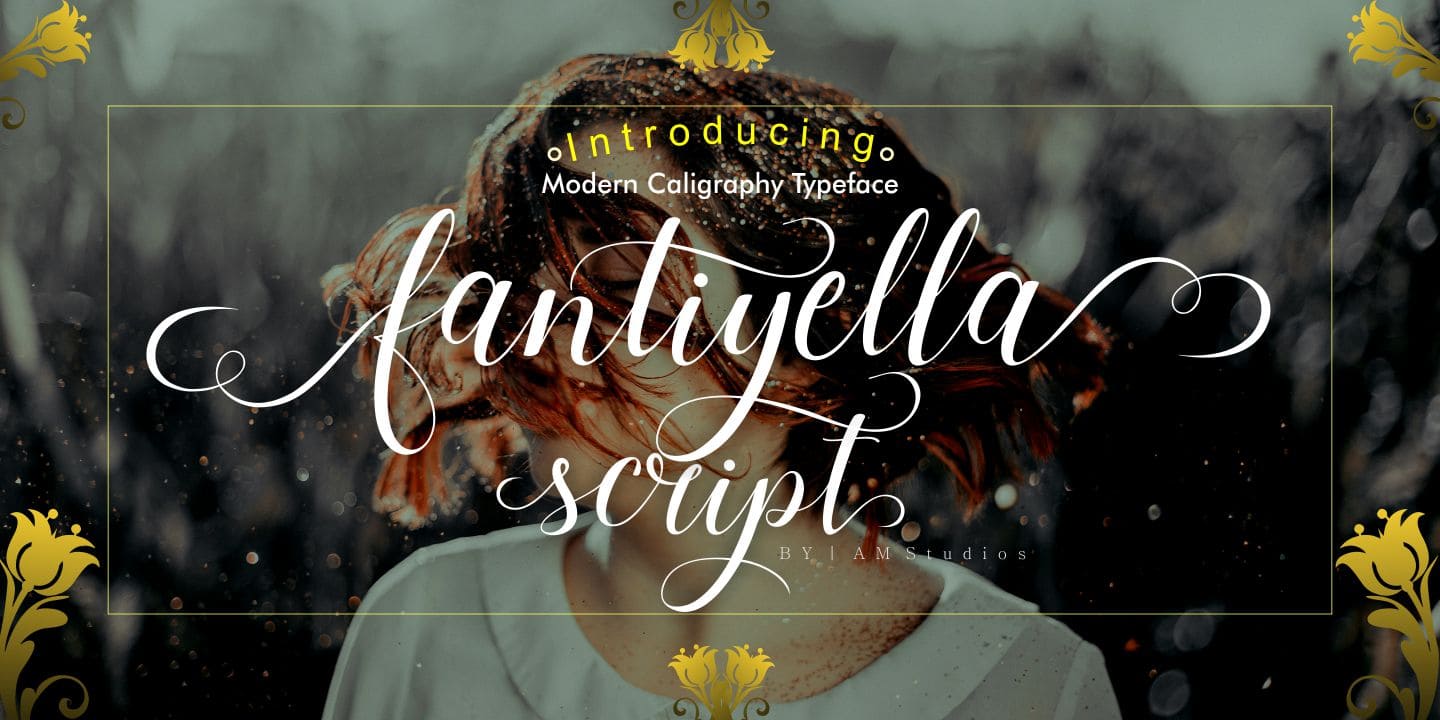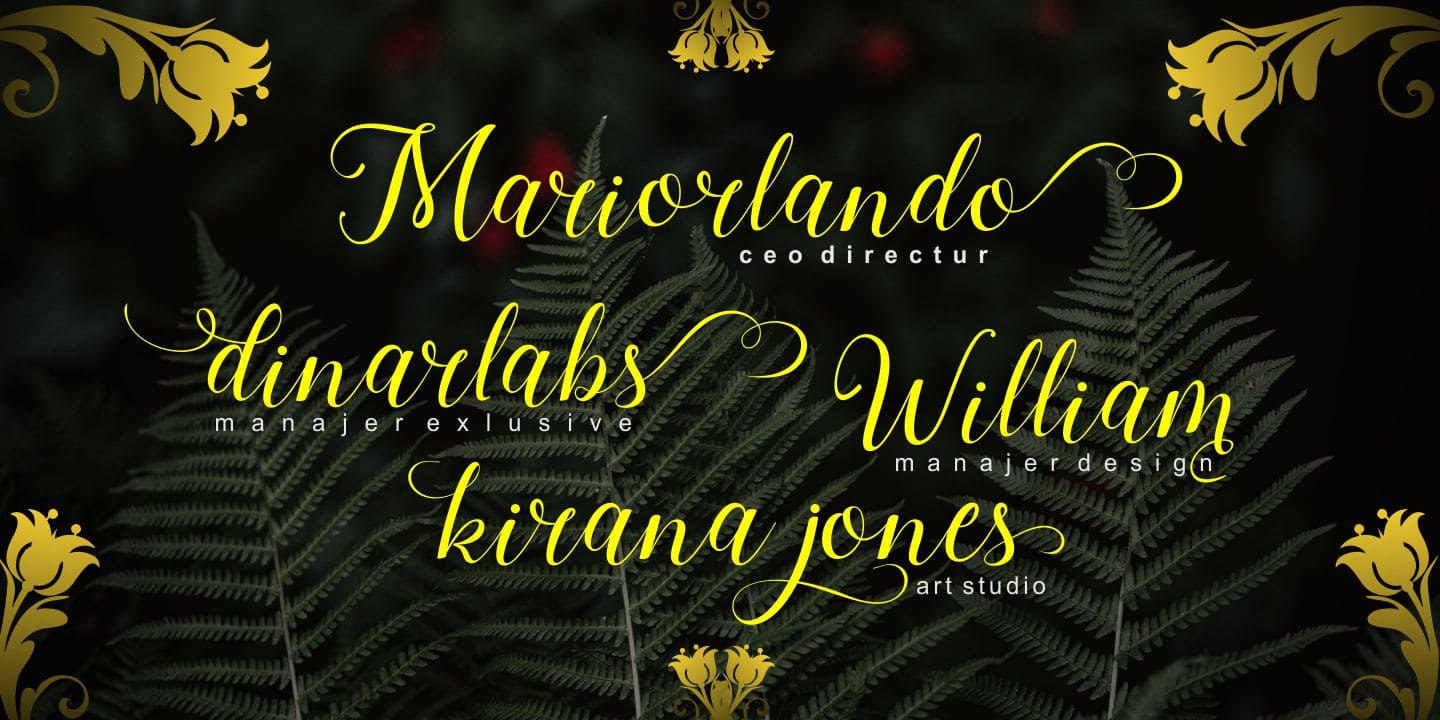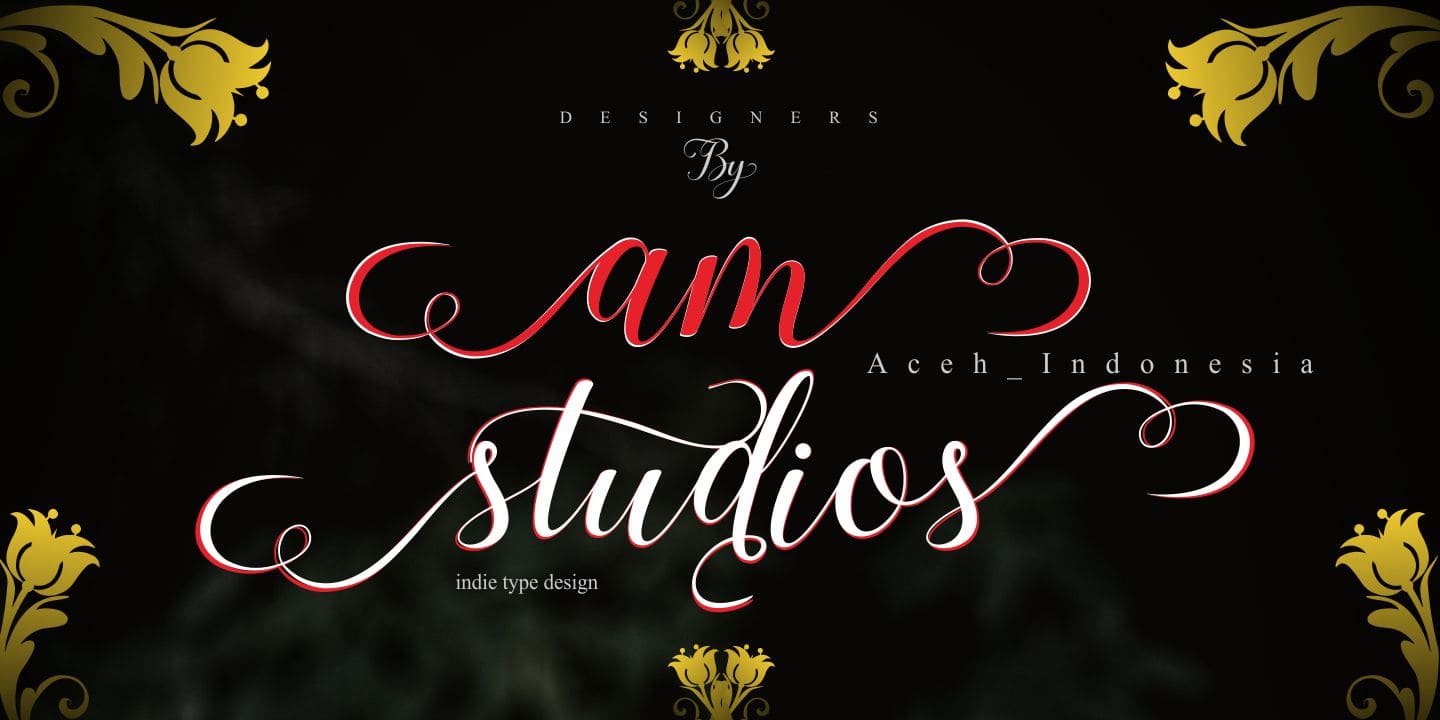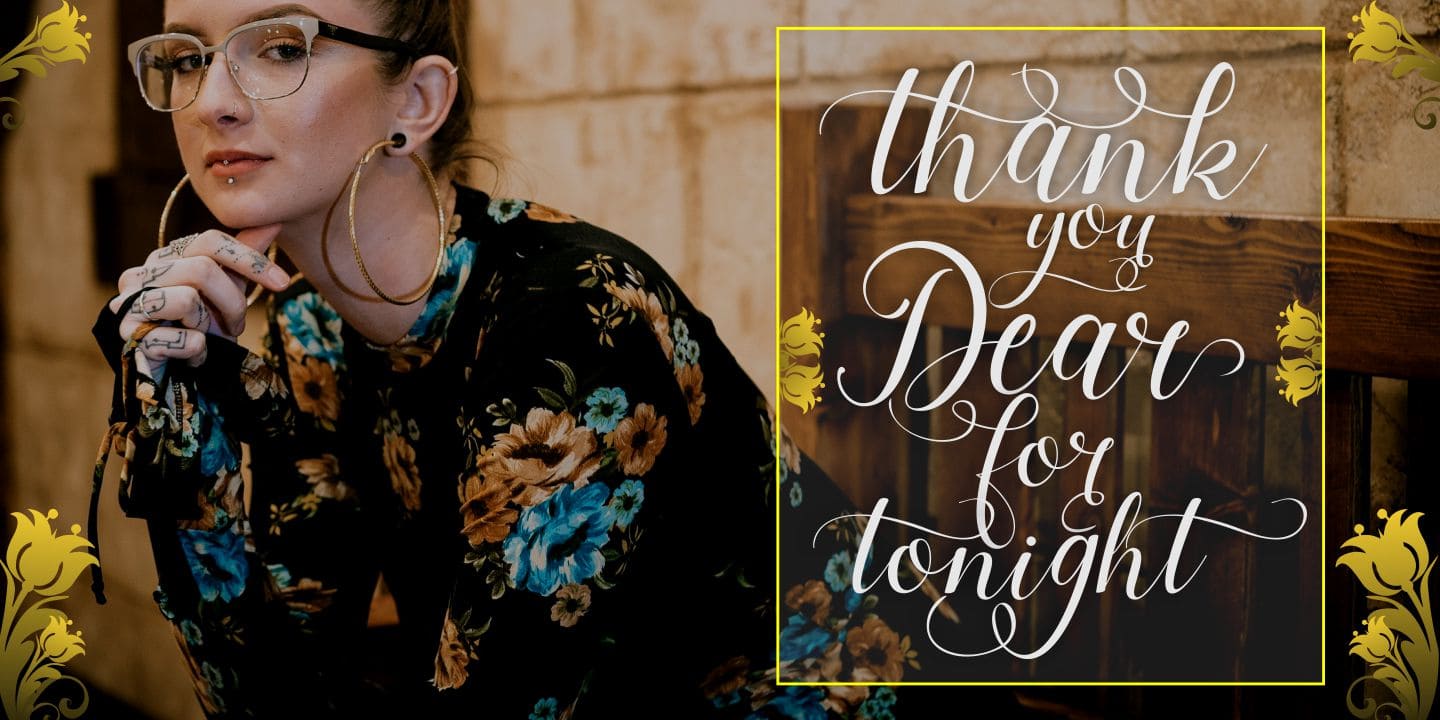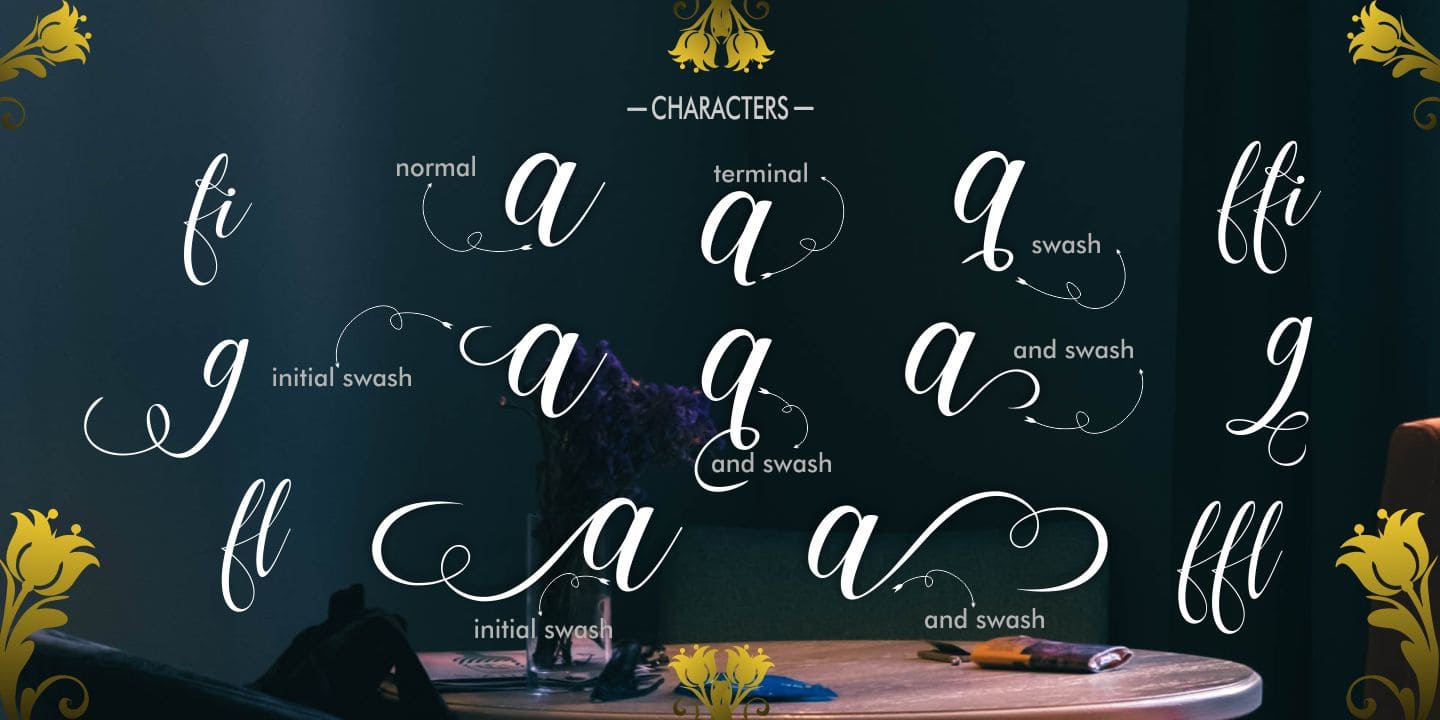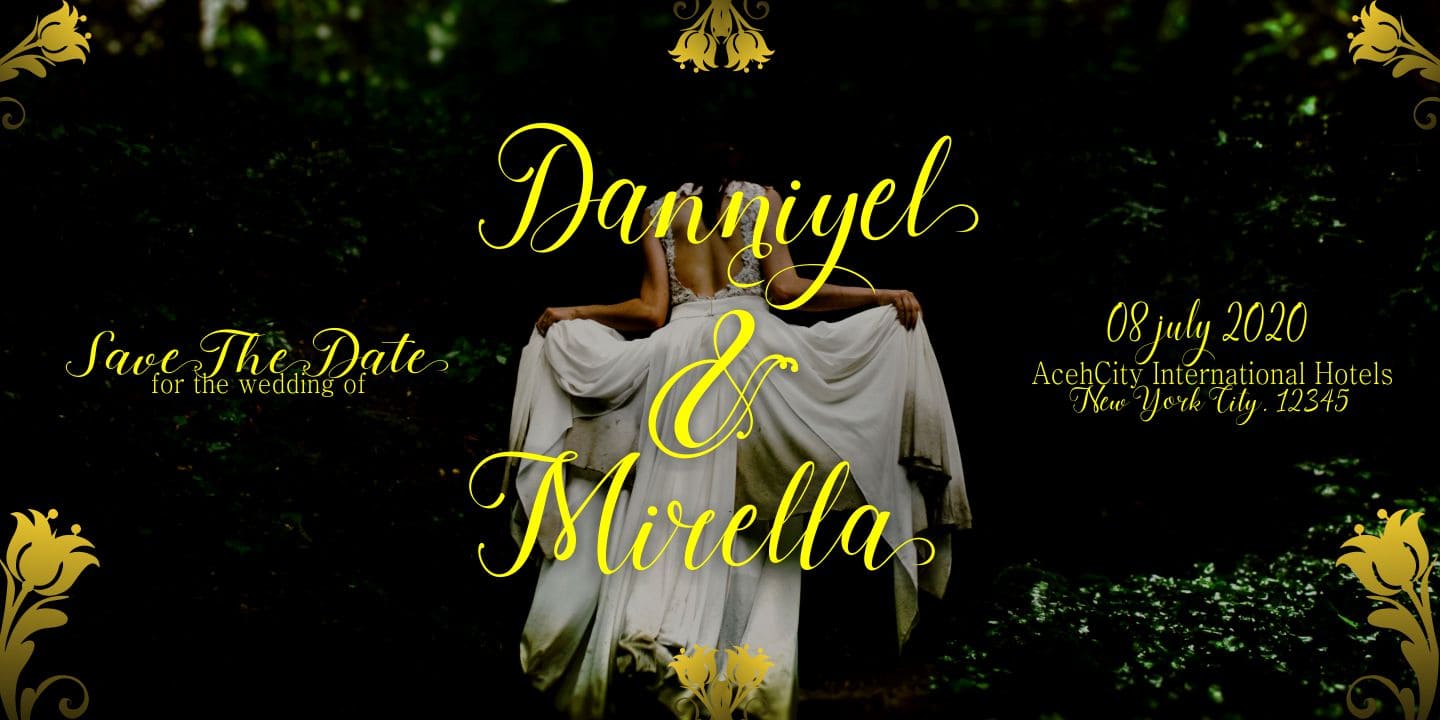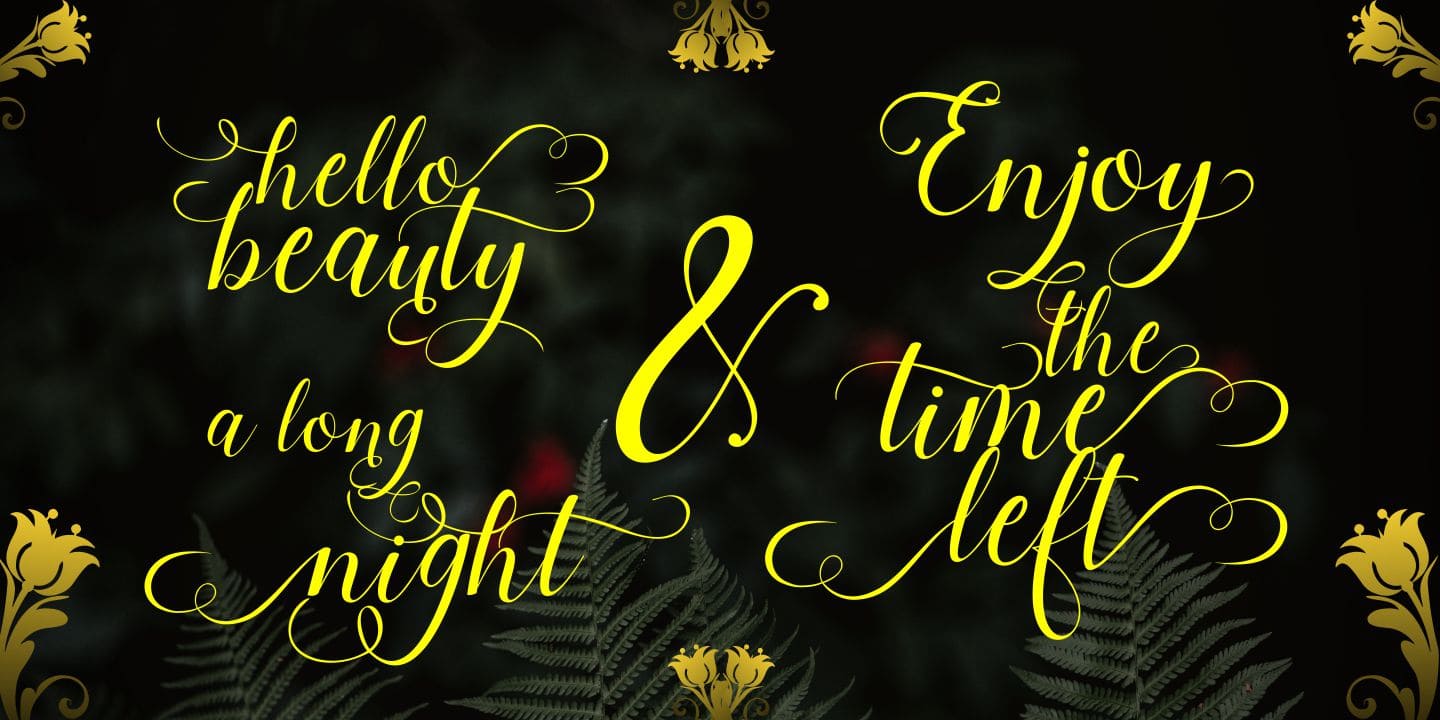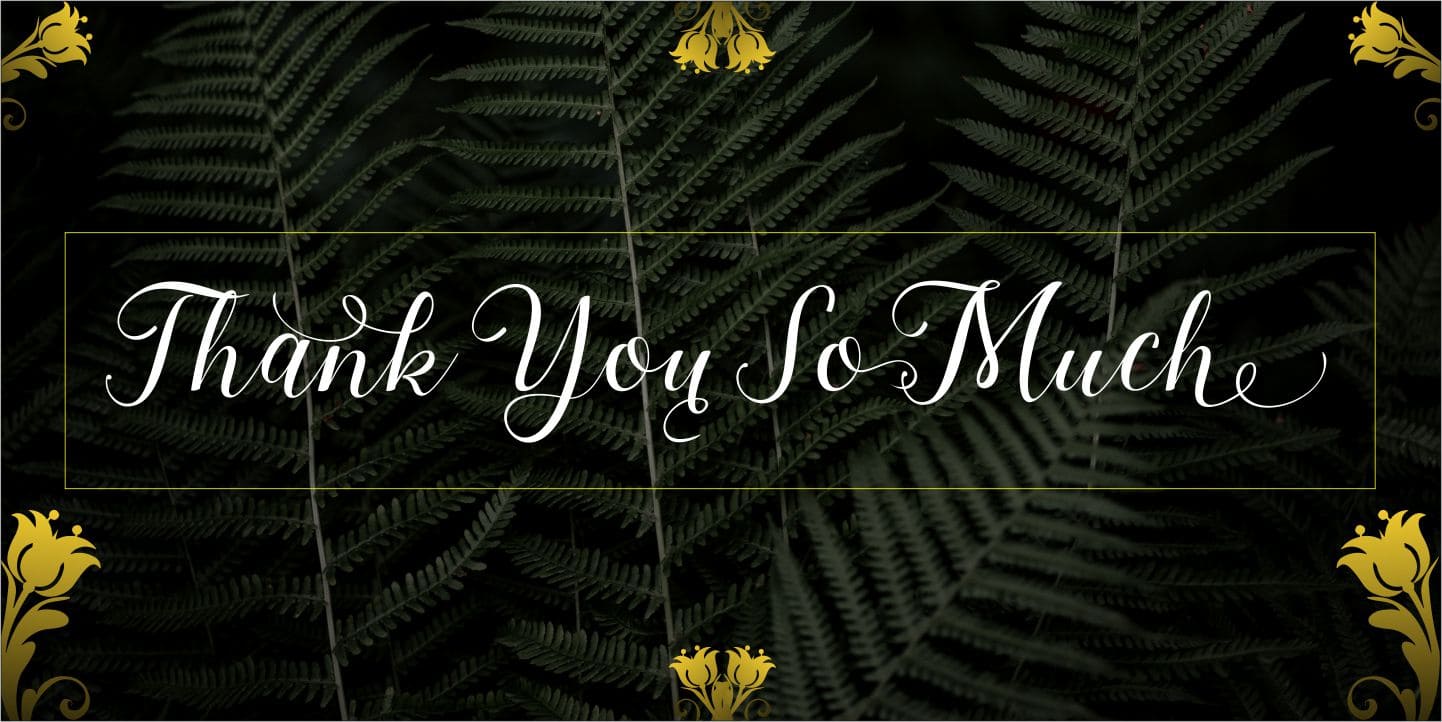
Fantiyella Script (1 font)
From AM Studio
This script features 603+ glyphs with 223 alternate characters including initial and terminal letters, ligatures and multiple language support.